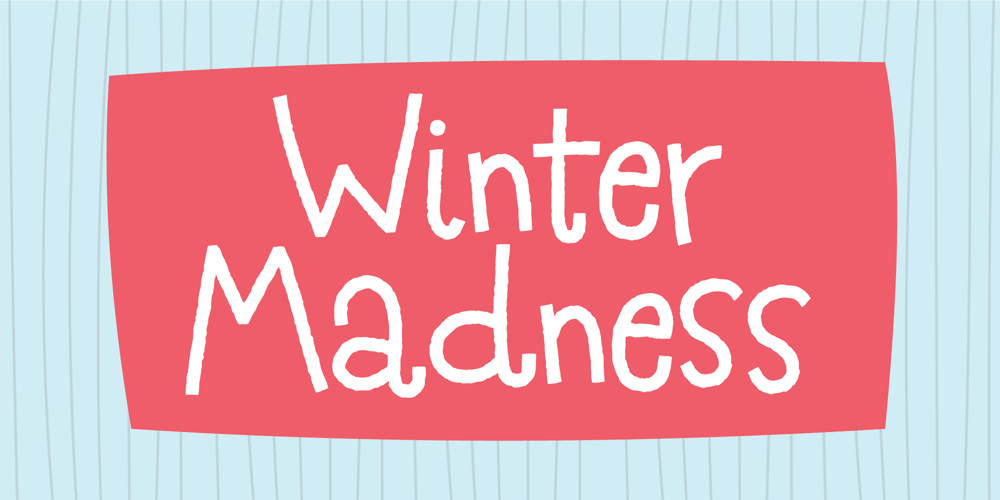
Winter Madness
Winter Madness font
Winter Madness Font Family was designed by Jakob Fischer and published by PizzaDude.dk. Winter Madness contains 2 styles and family package options. As I am writing this, Fall is moving rapidly towards winter – which makes me miss the summer…even though I love Fall and Winter. I named this font Winter Madness, inspired by a instrumental tune by Kool & The GangIt’s a rough, handmade font. Super legible even though it’s curly and wacky lines. Comes with multilingual support and “jumpy” ligatures